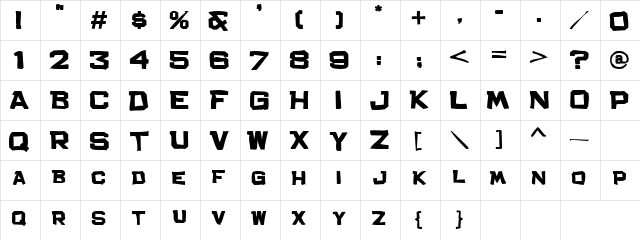
Bachelor Pad Crud JL Regular
| Foundry | Jeff's Fonts & Dingbats |
| Designer | Jeffrey N. Levine |
Design Context for Bachelor Pad Crud JL Typeface
Bachelor Pad Crud JL is a composed and adaptable typeface that performs quietly and consistently across a wide range of design contexts.